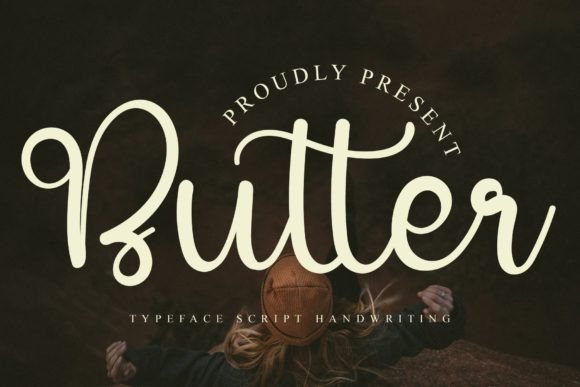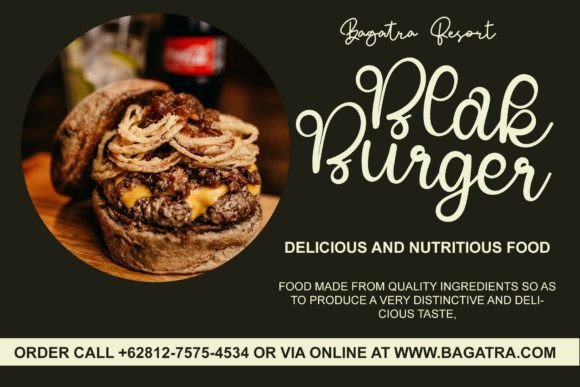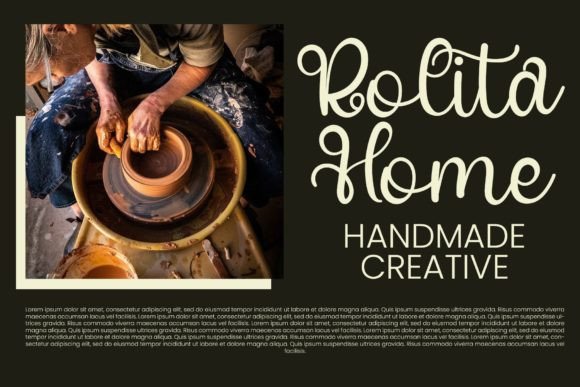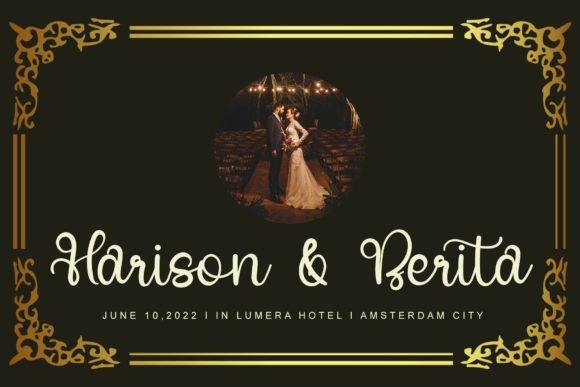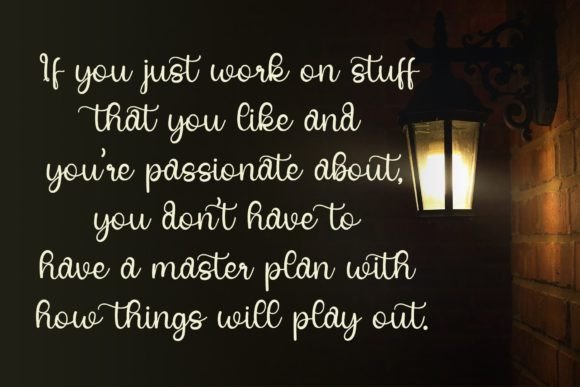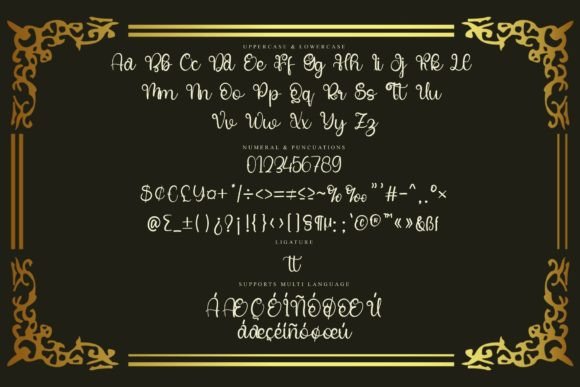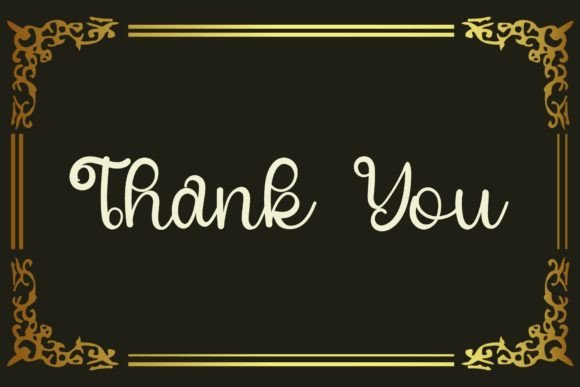
Butter Font
**Butter** is a stylish handwritten font exuding a contemporary atmosphere and impeccable form, drawing inspiration from timeless classic calligraphy. Its balanced and varied letterforms were meticulously designed to enhance the beauty of your projects.
The font’s elegance lies in its ability to blend modern aesthetics with traditional calligraphic charm. Its smooth and flowing lines create a sense of sophistication, making it suitable for a wide range of applications. Whether you’re working on wedding invitations, branding, packaging, social media posts, logos, or any other creative endeavor, **Butter** adds a touch of refinement and class.
The versatility of **Butter** allows it to adapt seamlessly to different design contexts. Its well-crafted letterforms create a harmonious flow, enhancing the visual appeal of your projects. The font’s contemporary vibe adds a modern twist to classic calligraphy, making it appealing to both traditional and contemporary design sensibilities.
Embrace the timeless elegance of **Butter** in your creative ventures, and let its stylish handwritten charm elevate your designs. Whether you’re aiming for a luxurious look or a sophisticated vibe, this font allows you to create visually stunning and impactful designs that leave a lasting impression. Enjoy the process of transforming your ideas into elegant and captivating creations with the help of **Butter**.